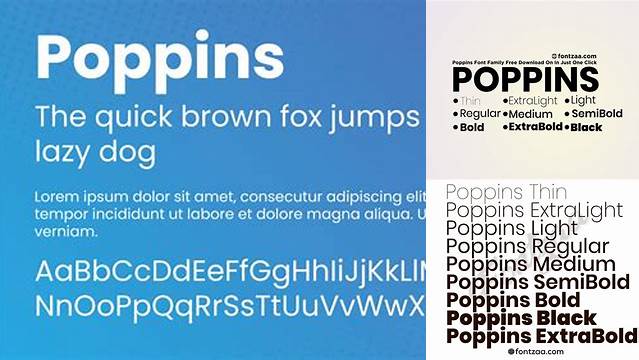
Poppins Font: A Guide To Google Fonts CSS Integration
Hey guys! Let's dive into the world of web typography and explore how to beautifully integrate the Poppins font using Google Fonts and CSS. Poppins is a popular sans-serif font that's clean, modern, and incredibly versatile. It's a fantastic choice for websites and applications that aim for a contemporary and readable design. In this guide, we'll cover everything you need to know, from the basics of Google Fonts to the specific CSS techniques for making Poppins shine on your website. So, grab your coffee, and let's get started!
H2: Understanding the Appeal of Poppins Font
Okay, first things first: why Poppins? Why is this font so darn popular? Well, Poppins boasts a unique blend of characteristics that make it a go-to choice for designers and developers alike. Firstly, Poppins's geometric design lends it a distinctly modern feel. The clean lines and simple shapes create a sense of clarity and sophistication. This is super important for readability, especially on screens. Think about it: you want your visitors to easily digest your content, right? Poppins helps with that. Secondly, Poppins offers excellent readability. Its letterforms are designed to be clear and distinct, even at smaller sizes. This is crucial for everything from body text to navigation menus. Nobody wants to squint to read a website. Thirdly, Poppins is versatile. It works beautifully for both headings and body text. This versatility makes it easy to create a cohesive and visually appealing design. And fourthly (and this is a big one!), Poppins is available for free on Google Fonts. This means you can use it on your website without any licensing headaches. Pretty sweet deal, eh?
Let's dig a little deeper. The beauty of Poppins lies in its subtle details. Look closely, and you'll notice that the letterforms have a slight circular quality, softening the geometric structure and adding a touch of warmth. This slight roundness is what sets it apart from more rigid sans-serif fonts. Moreover, Poppins comes in a wide range of weights and styles. You can find everything from light and thin to bold and extra-bold, and everything in between. This extensive variety gives you complete control over the look and feel of your website. You can use different weights to create visual hierarchy, emphasizing important text and guiding the reader's eye. It's like having a whole font family at your fingertips! Beyond its aesthetic appeal, Poppins also performs well in terms of technical aspects. It renders beautifully on different devices and screen sizes. Whether someone's viewing your site on a desktop computer, a tablet, or a smartphone, the Poppins font will look crisp and clear. This is critical for a positive user experience. Plus, because it's hosted on Google Fonts, you can be sure that it's optimized for web performance. This means that it won't slow down your website's loading time. Choosing the right font can drastically affect the look and feel of your website, and Poppins is a great choice.
Poppins is a fantastic selection for a range of design styles. Whether you're working on a corporate website, a personal blog, or an e-commerce store, Poppins can help you create a professional and visually appealing design. Its adaptability makes it well-suited for various industries and target audiences. It's no surprise that it's a favourite amongst designers.
H2: Google Fonts: Your Gateway to Free Web Fonts
H2: Step-by-Step: Integrating Poppins with Google Fonts
Alright, let's get to the good stuff – the step-by-step process of integrating Poppins with Google Fonts. It's easier than you think, I promise! First, you'll want to head over to the Google Fonts website (https://fonts.google.com/). Once you're there, use the search bar to find Poppins. Once you find the font, click on it to view its details. You'll see a preview of the font and be able to browse the available weights and styles. Select the weights and styles that you want to use on your website. Think about where you'll use Poppins and what kind of emphasis you want to achieve. Do you need bold headings, regular body text, and italicized callouts? Choose accordingly. When you’ve selected the styles you want, click on the “View selected families” icon at the top right of the page. This will open a panel at the bottom of the screen. This panel will show you the code you need to add to your website. You'll have two main options: <link> and @import. Let's start with the <link> method. Copy the <link> code provided by Google Fonts. This code usually looks something like this: `<link rel=